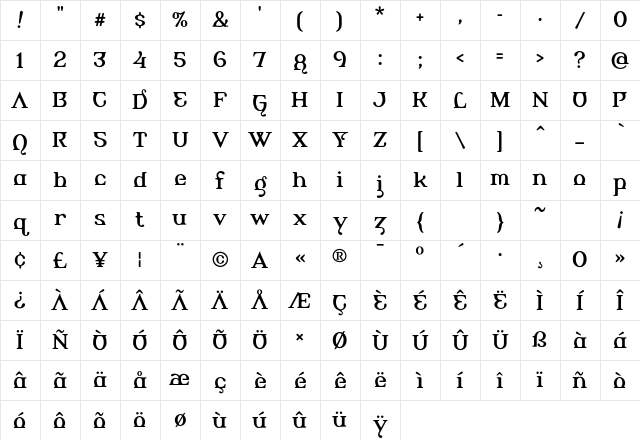
Complete Alembic RegularTwo glyph index. Displaying only characters natively supported by Alembic RegularTwo font.
Alembic is a composed and adaptable typeface that performs quietly and consistently across a wide range of design contexts.